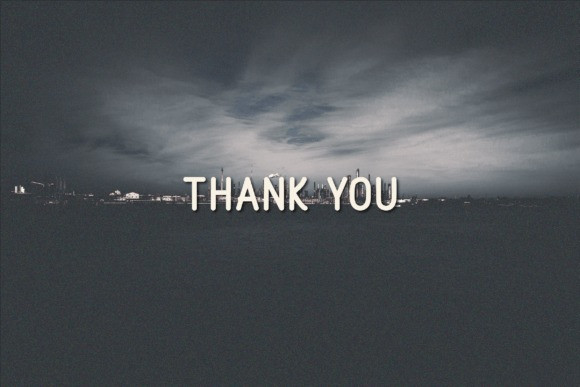
Admirer Font
Admirer Display Font is a quirky and playful all-caps sans serif font. Whether you’re using it for crafts, digital design, presentations, or making greeting cards, this font has the potential to become your favorite go-to font, no matter the occasion.